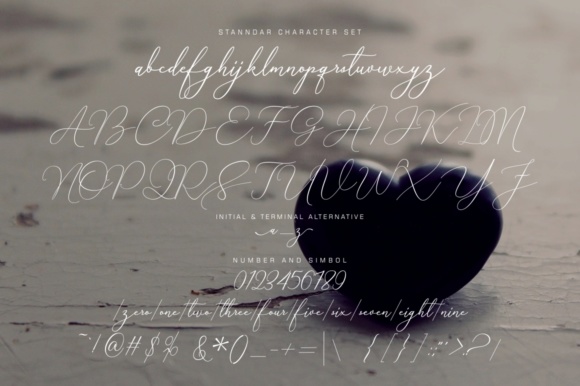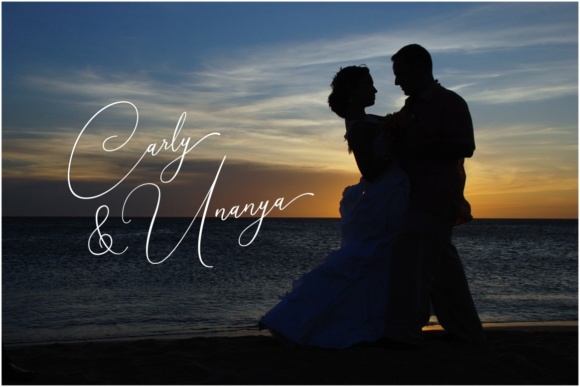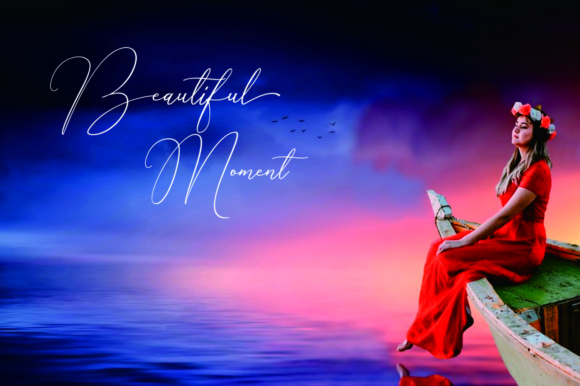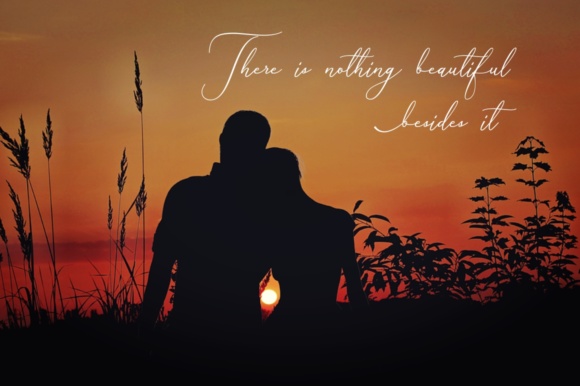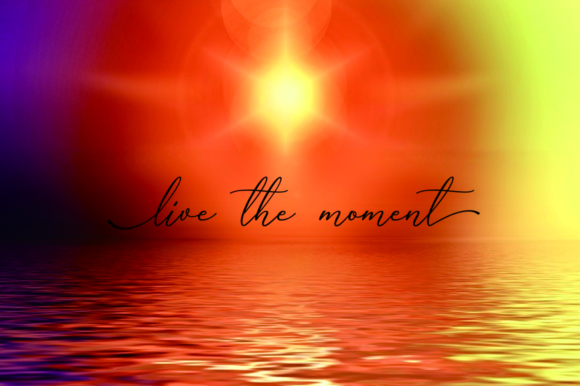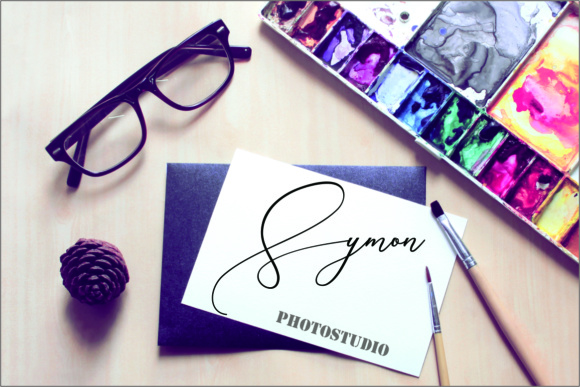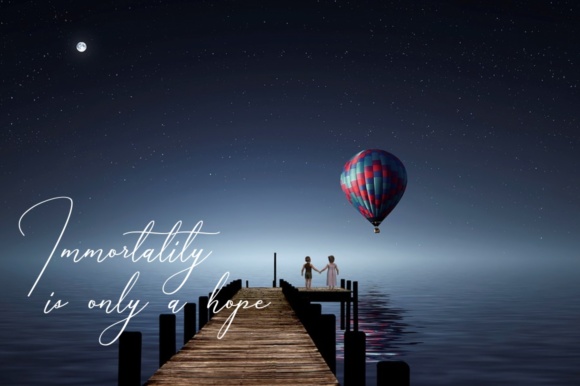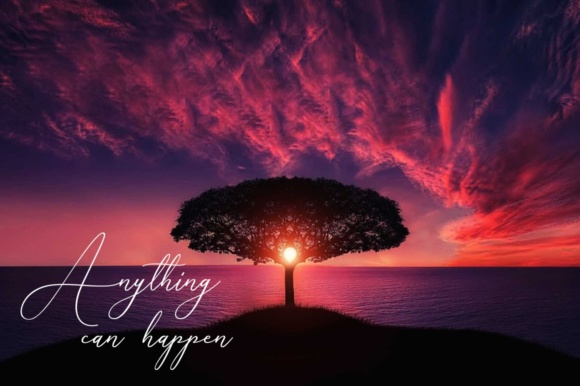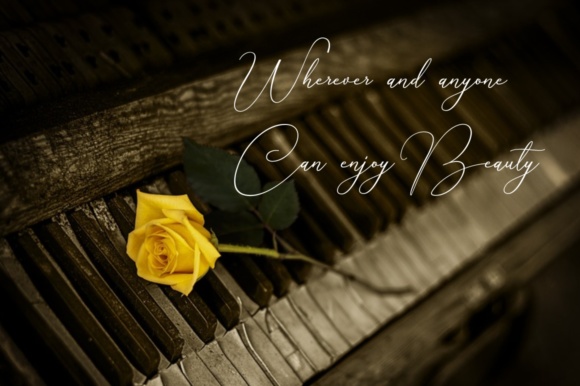
Creative Signature Font
About Creative Signature Font
The Creative Signature is a purely handwritten typeface with its own unique characteristics. It has an elegant, feminine style with a good readability. Perfect for blogs, signatures, invitations, titles, and much more!